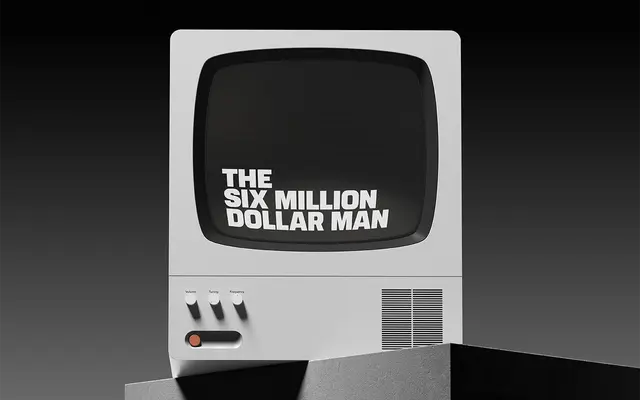
A rectangular grotesque-inflected sans with nine weights and matching italics, built for branding and display use.
Vitro combines a squared, technical structure with grotesque optical adjustments to produce a clean, contemporary sans. Nine weights run from Thin to Black with italic companions, and each style carries over 450 characters with OpenType features including fractions, tabular figures and numerators. Language support covers Western, Southern and Central Europe, and the family was remastered to version 2.0 for improved OpenType usability.
Described by the foundry as a rectangular sans serif with grotesque influence; the geometric, squared construction with optical corrections places it in the grotesque-adjacent geometric sans category.